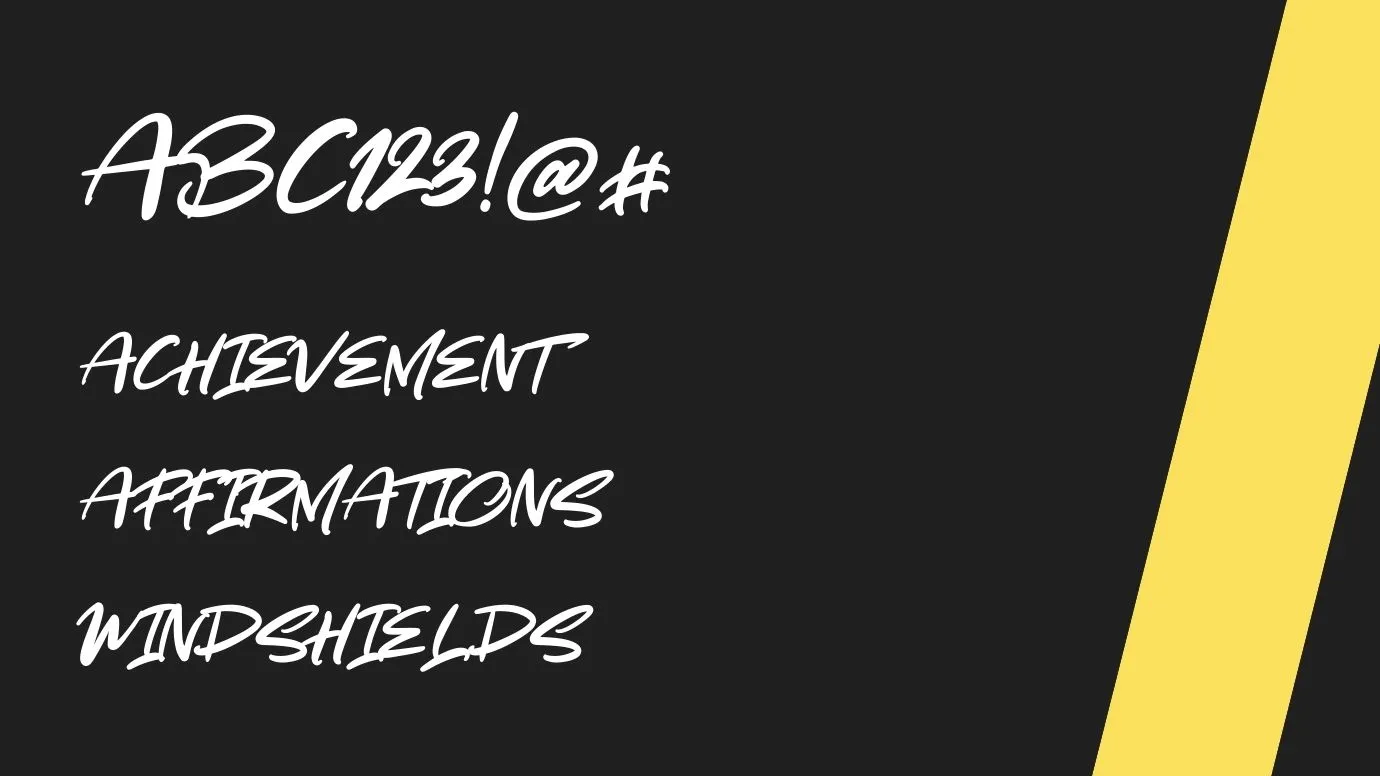
Introducing Toothless handwritten font by one of the famous Weape Studio. It was released in 2019 with a stroke of handwritten touch to it.
This typeface is perfect for signature logos, handwritten quotes, product packaging, fashion magazine, photography, merchandise, branding poster, social media posts, book cover, flyer, and advertising.
With a beautiful collection of hand letters guaranteed to deliver an unapologetically loud and fast-paced message. The typeface contains a lowercase, and uppercase, symbol and also supports multi-language. It comes with various options like stylistic alternates and ligatures and many more for branding purposes, catalog, etc.
The designed typeface features charming playful characters that seem to dance along the baseline. It has a fashionable touch with thin and sharp glyphs.
It is a legible typeface for all those who need certain things that will give you a natural appearance. This typeface family can easily be paired with british shorthair font. Both typefaces are matching with each other and have common distinctiveness because of their sheer creativity.
With the font generator, we can create new graphics as it is a delicate, elegant, and free-flowing handwritten typeface. Made from natural pen this typeface is a popular choice for web and interface designs.
Creator of Toothless Font
The creator of the typeface is Weape Studio, released in the year 2019 featuring charming playful characters along the baseline.
| Name | Toothless Font |
| Designer | Weape Studio |
What texture is the Toothless typeface?
It is a handwritten typeface with a beautiful collection of hand letters guaranteed to deliver a fast-paced message.
Where can I use the Toothless typeface?
This typeface is perfect for signature logos, handwritten quotes, product packaging, fashion magazines, photography, merchandise, branding posters, etc.
What languages support the Toothless typeface?
The handwritten typeface contains multiple languages. It supports, English, German, French, etc.